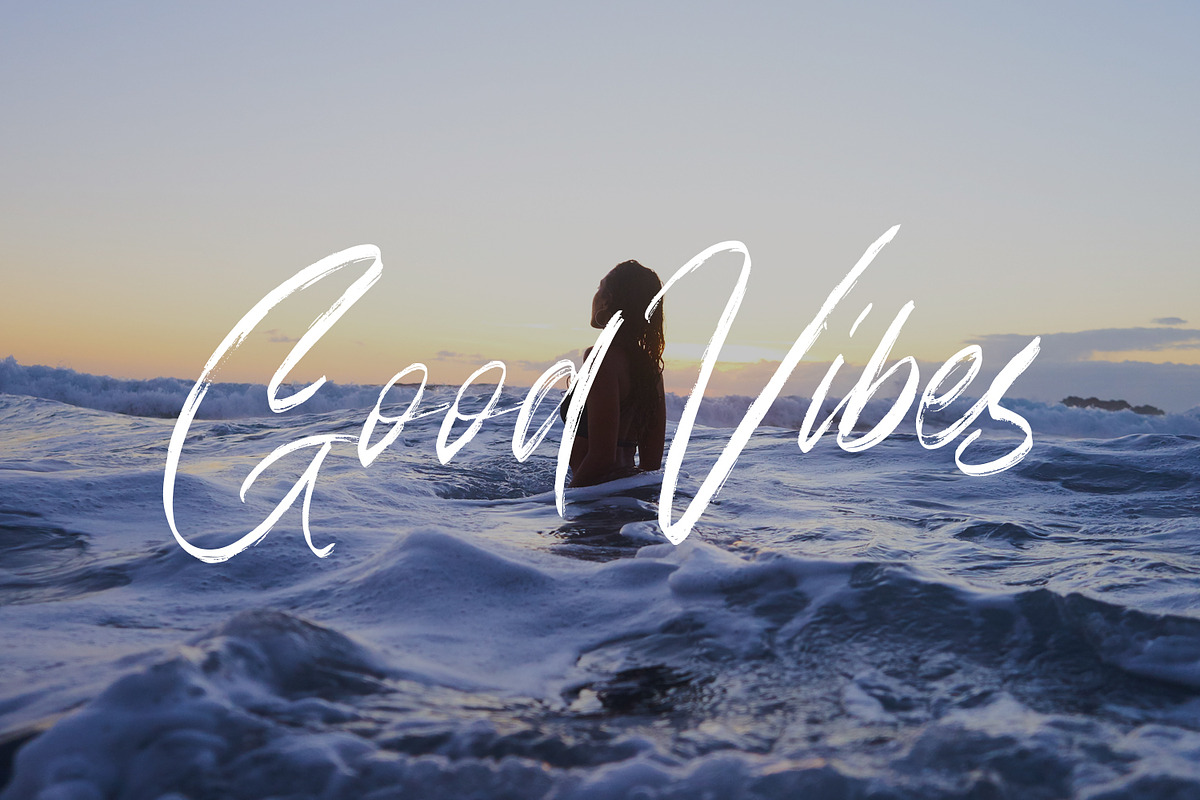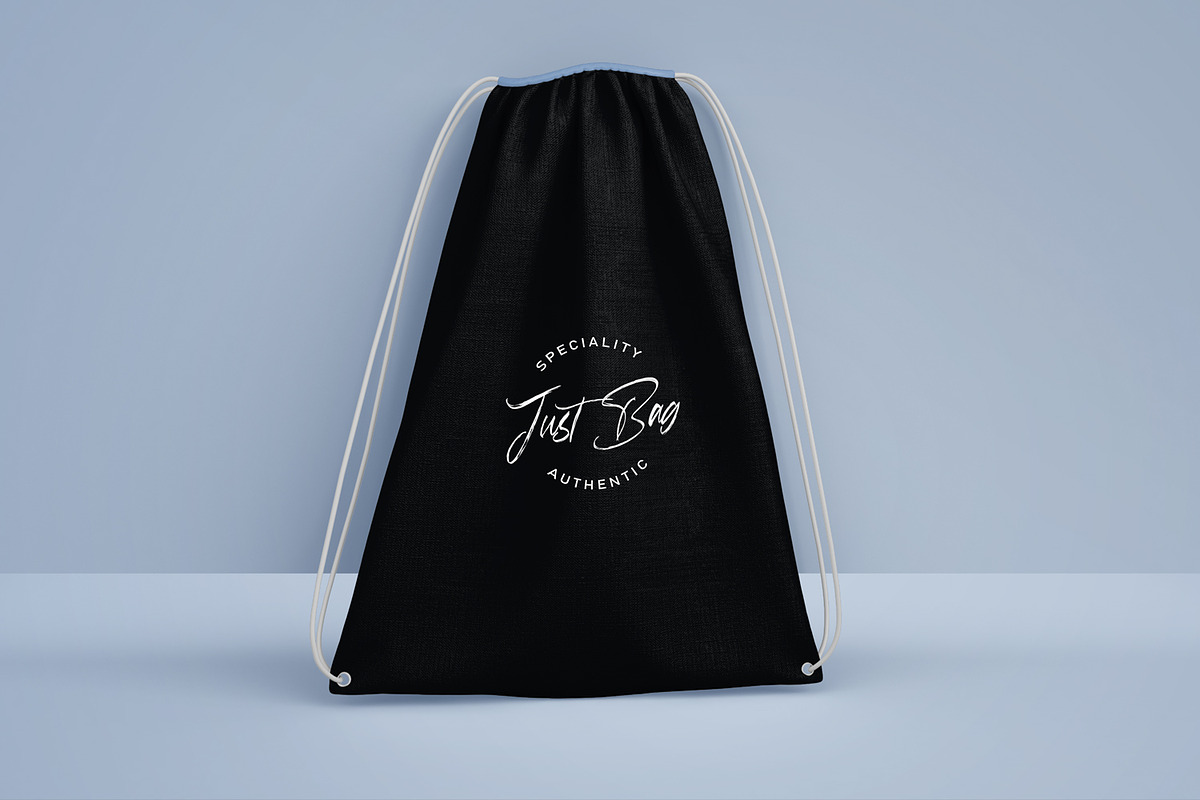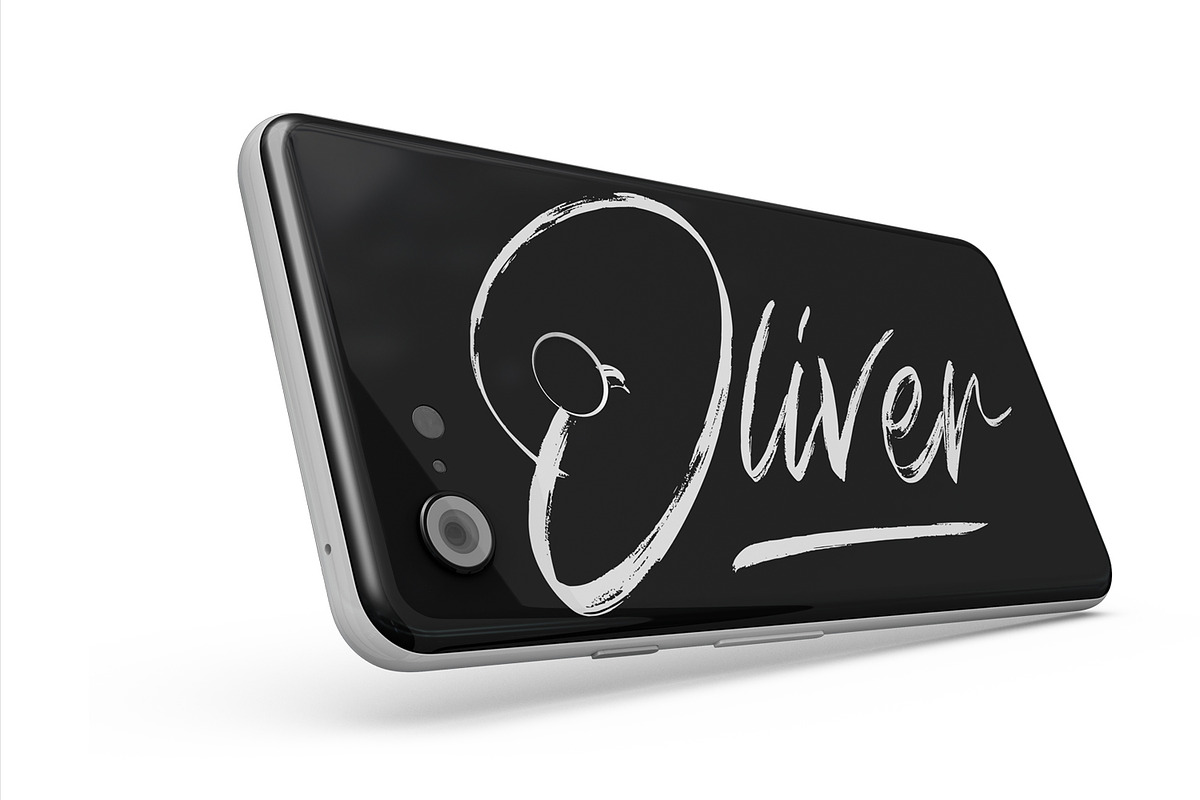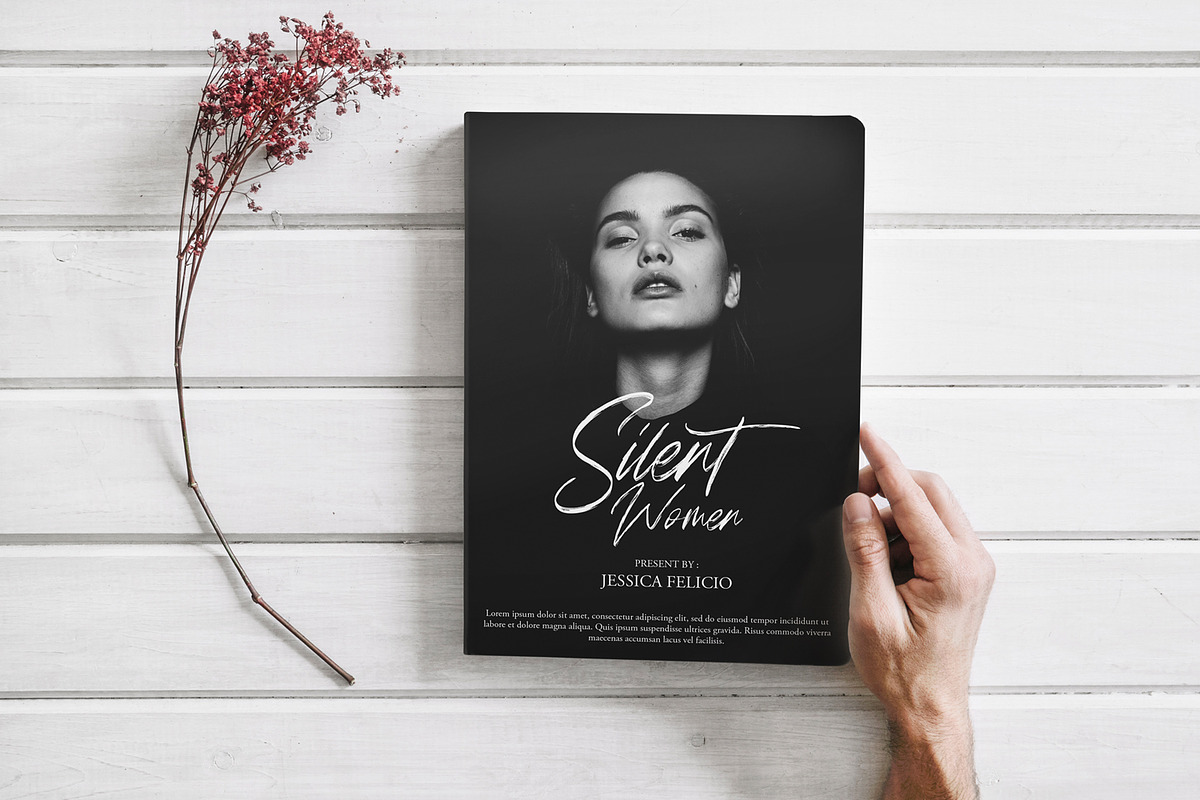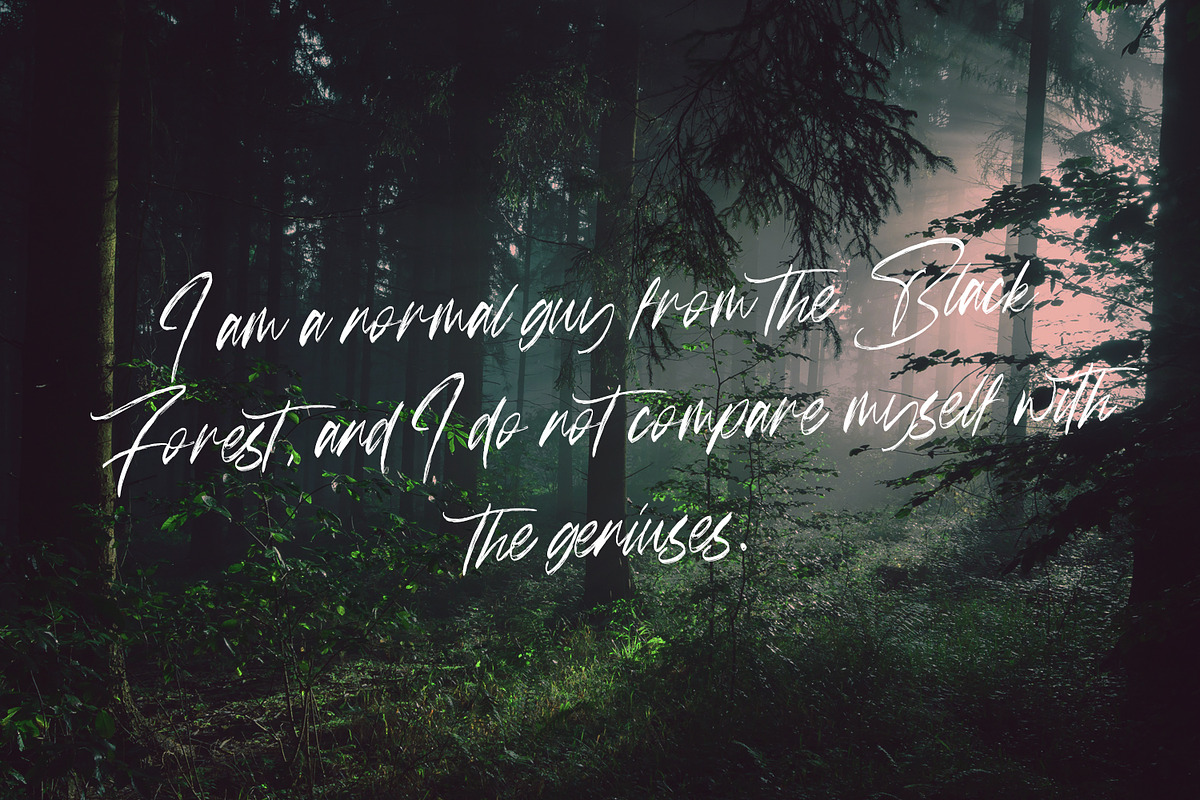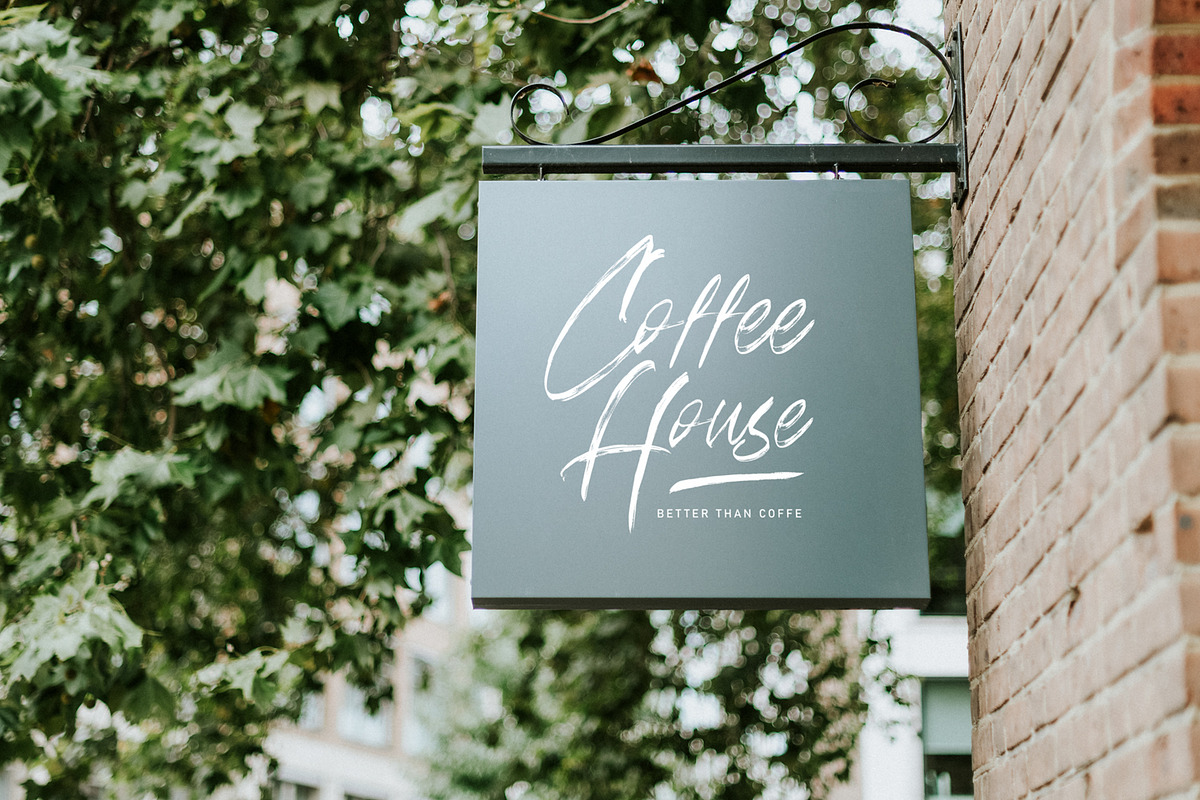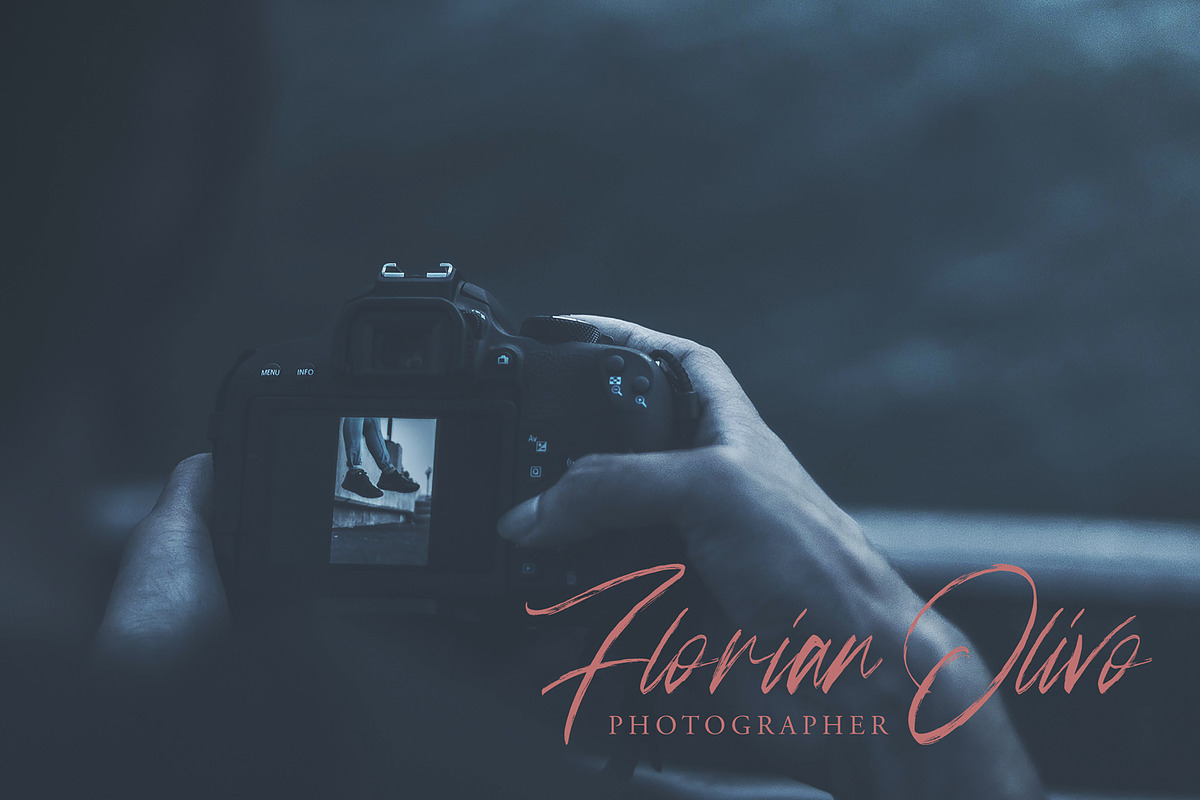
Followers - Handwritten Brush Font
Followers is a textured brush font, a contemporary approach to design, naturally handmade and containing underscores, alternates and ligatures that will make your design more attractive. Suitable for use in title design such as clothing, invitations, book tittles, stationery designs, quotes, branding, logos, greeting cards, t-shirts, packaging designs, posters and more.
Why Followers - Handwritten Brush Font is worth a look
Followers - Handwritten Brush Font by Arendxstudio fits naturally into Branding, posters, packaging, typography.